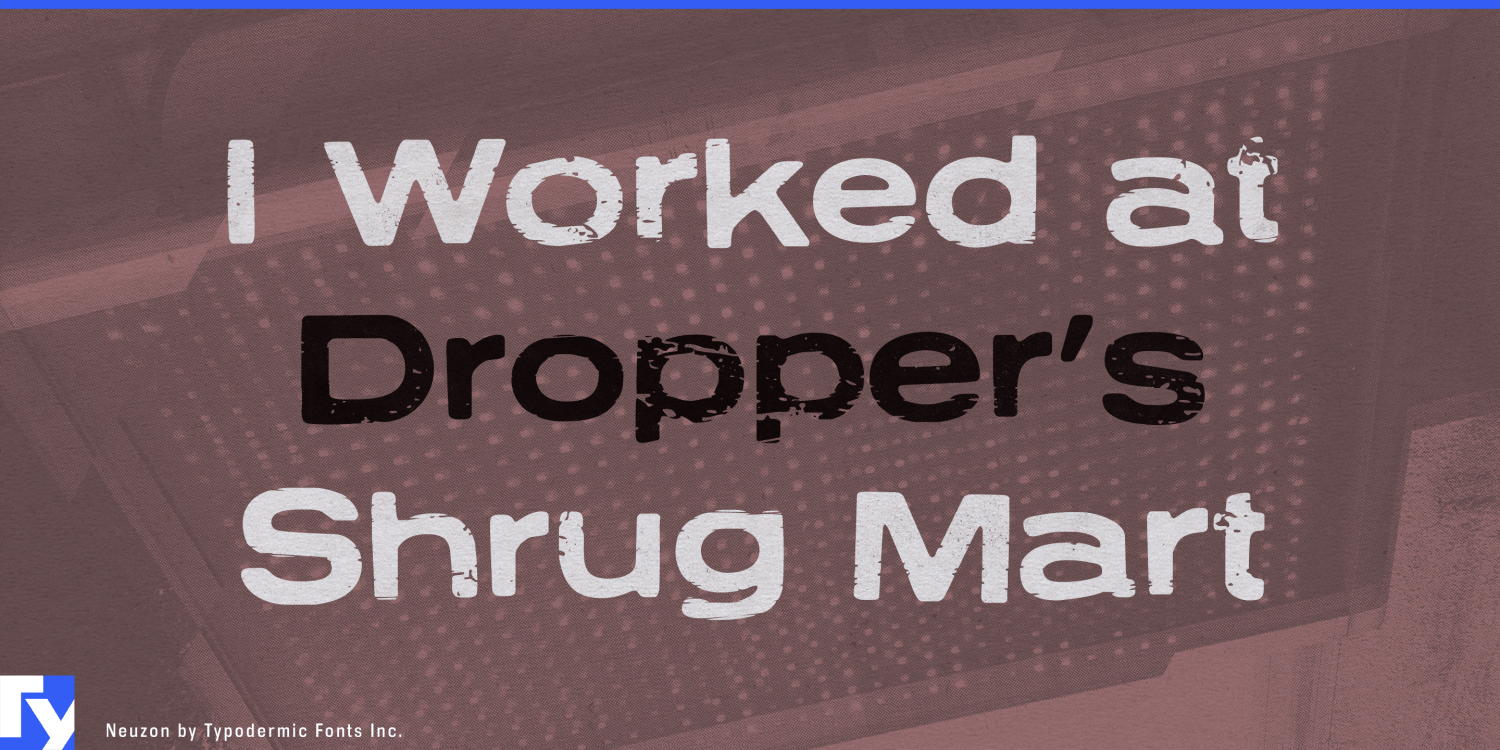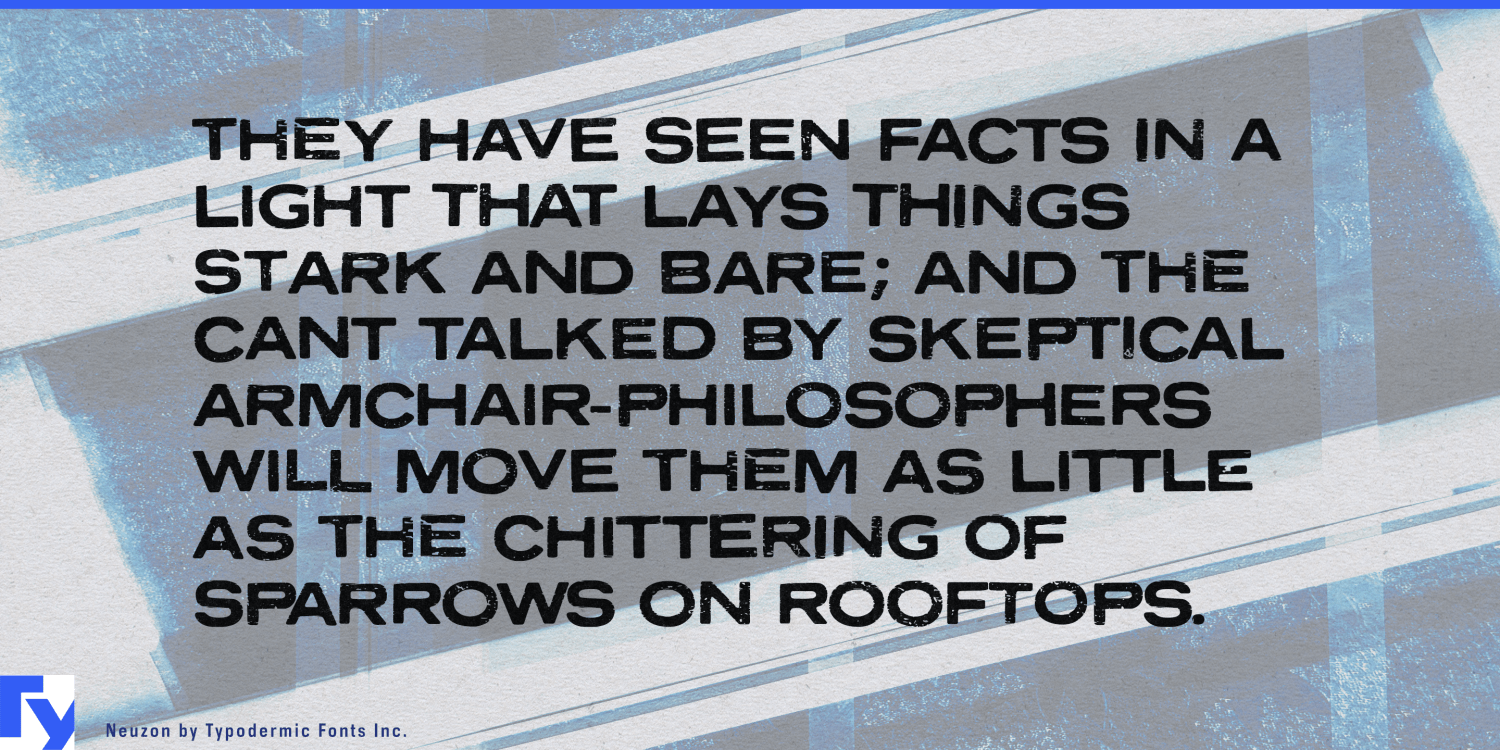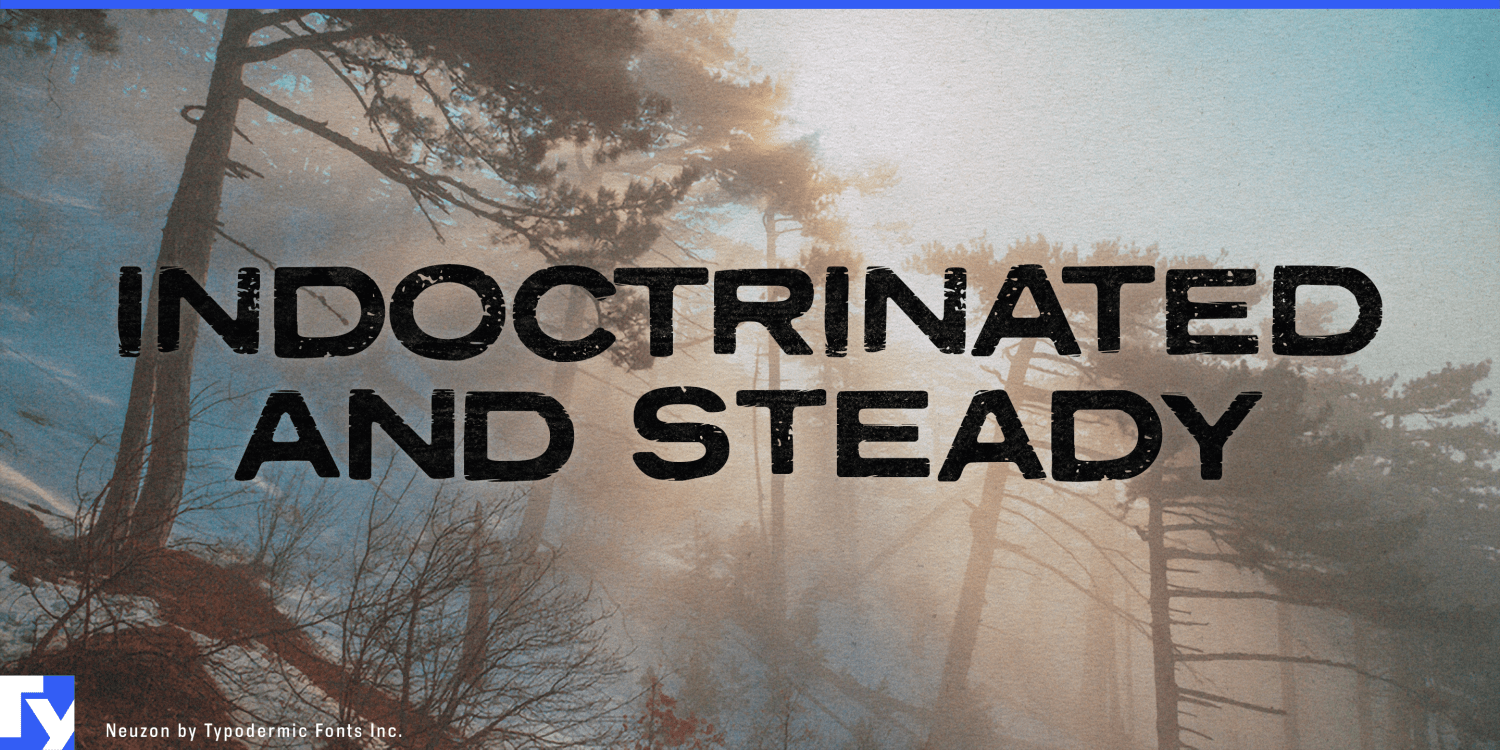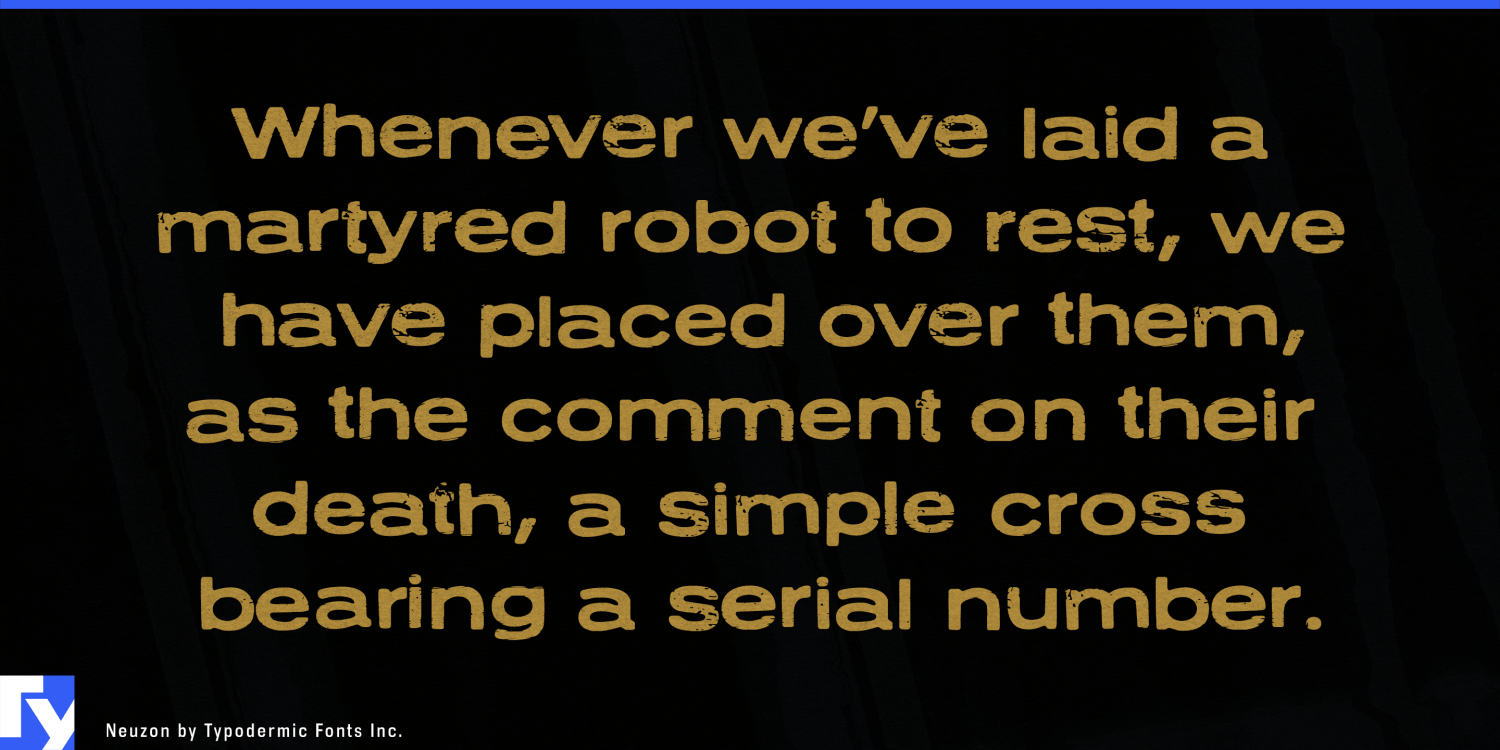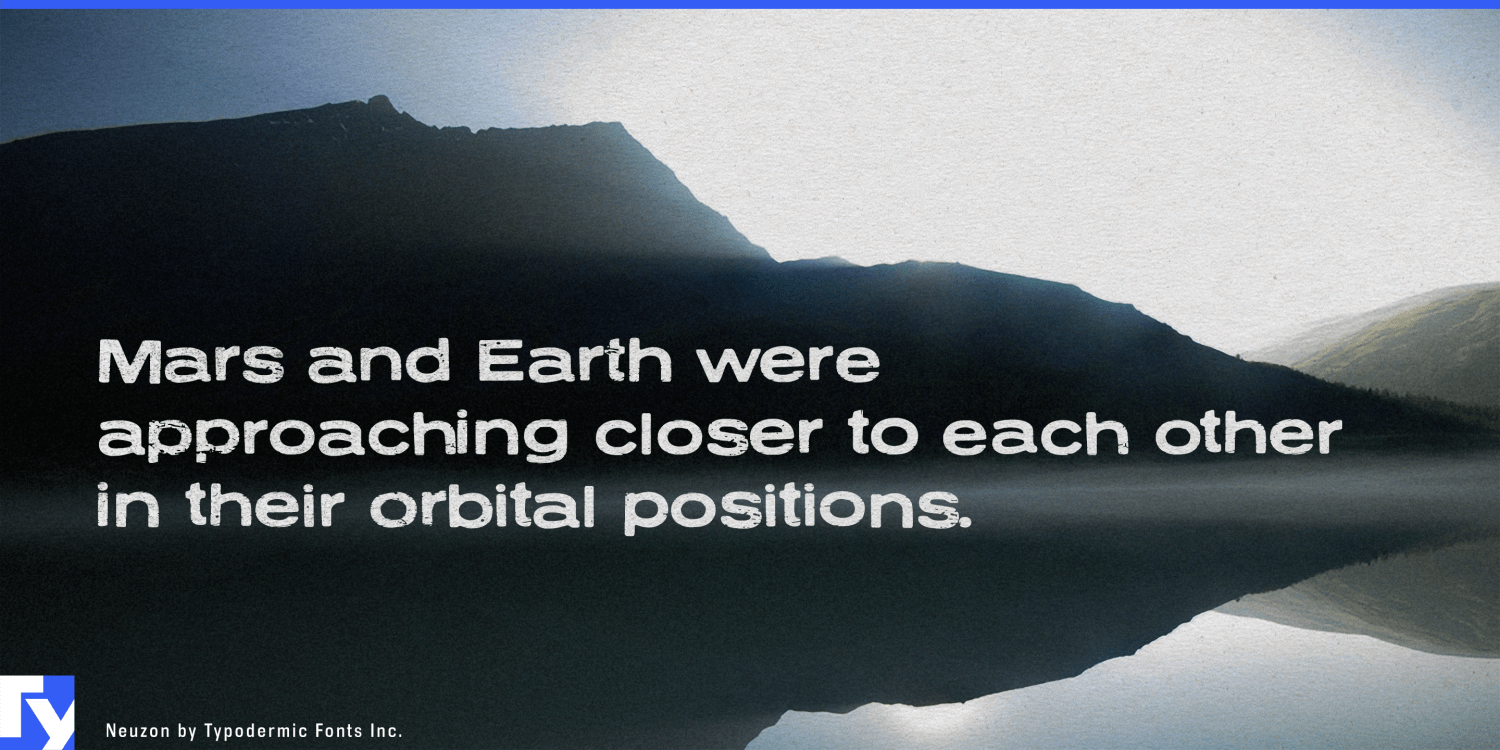
About Neuzon
Step into a world where the artistry of vintage typography meets modern design sensibility with Neuzon, a typeface that breathes new life into the rich legacy of metal typesetting. This bold, textured creation pays homage to the iconic Tempo Bold Extended,…